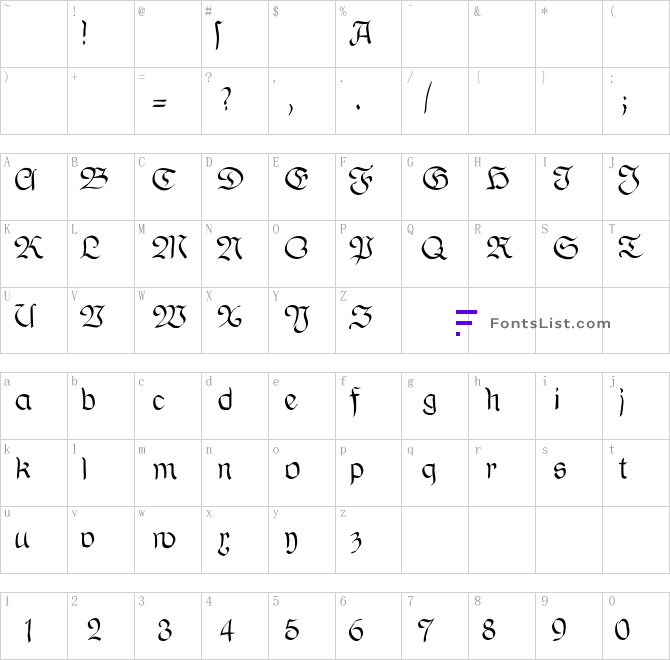
- Font Name:BauernFraktur
BauernFraktur.ttf is a very beautiful artistic font, BauernFraktur.ttf is widely used in the design and printing of various books and pictures,BauernFraktur.ttf has a strong visual impact,BauernFraktur.ttf is a commonly used font in newspapers, magazines and books, and is used in posters, e-commerce Poster design, store design, logo design, font design and other fields.BauernFraktur.